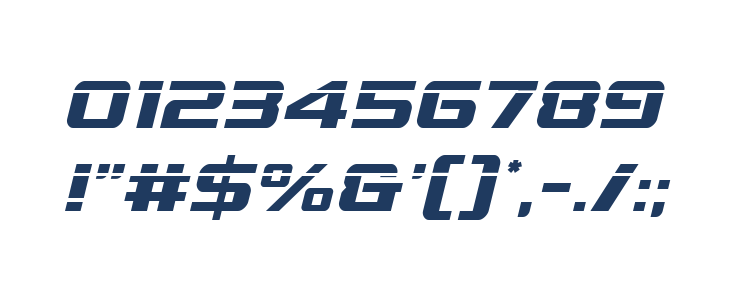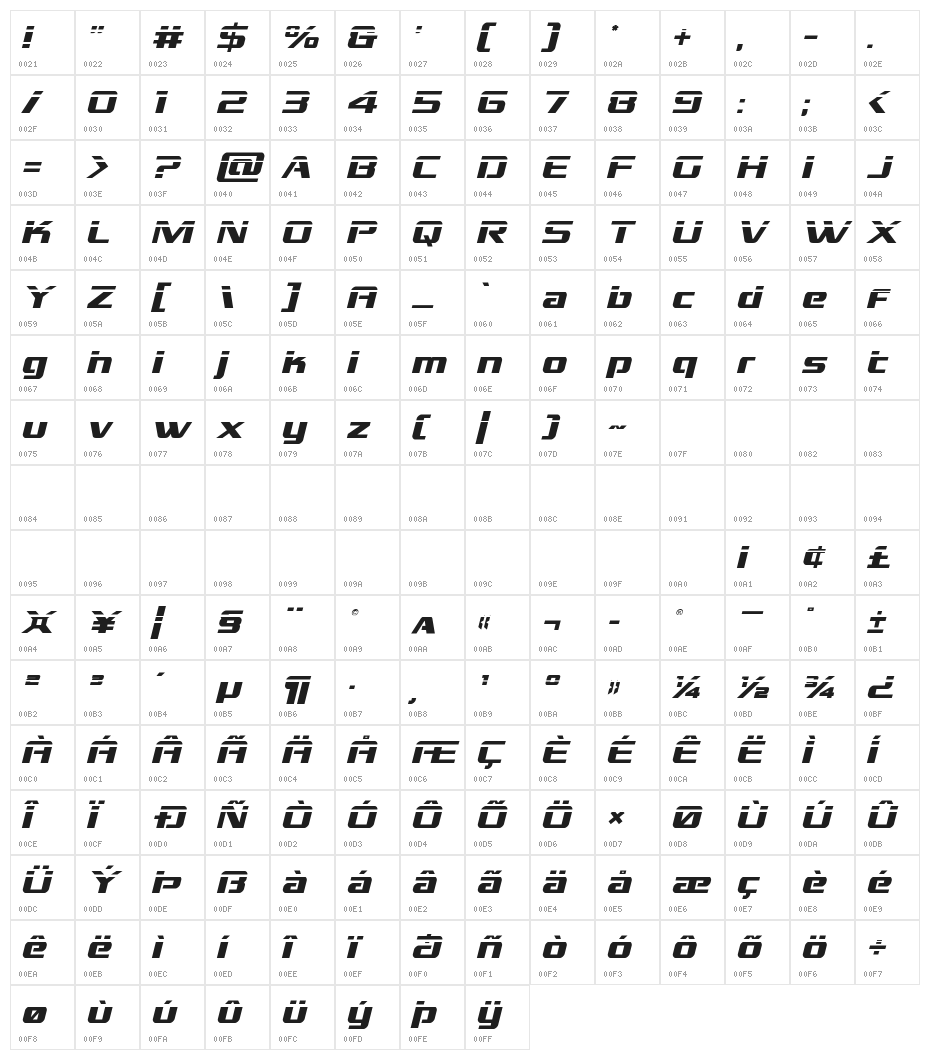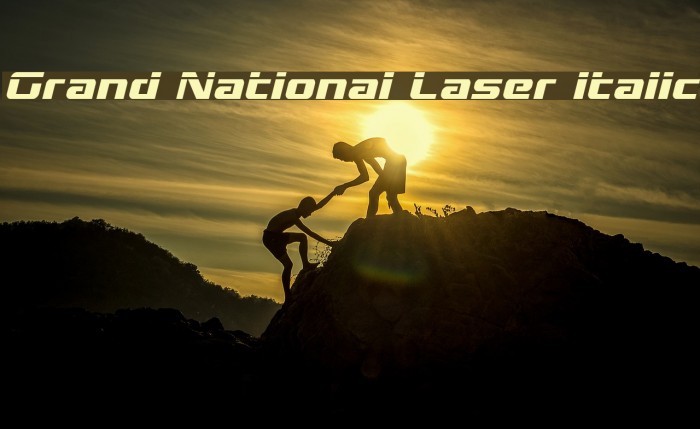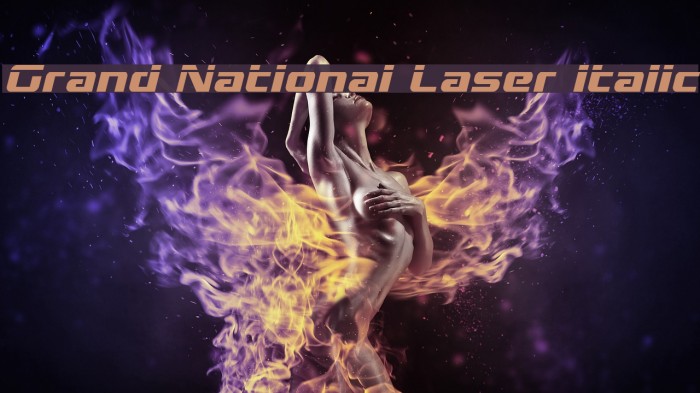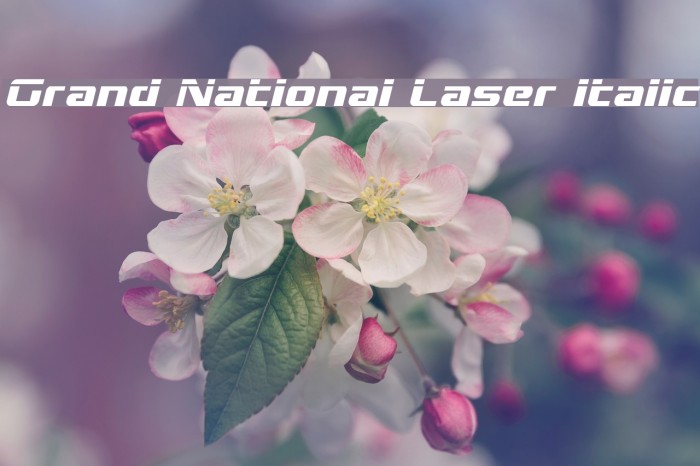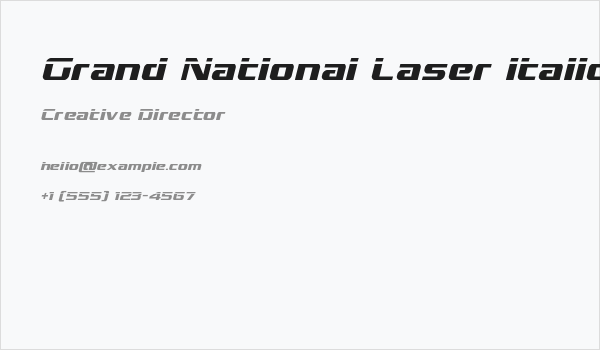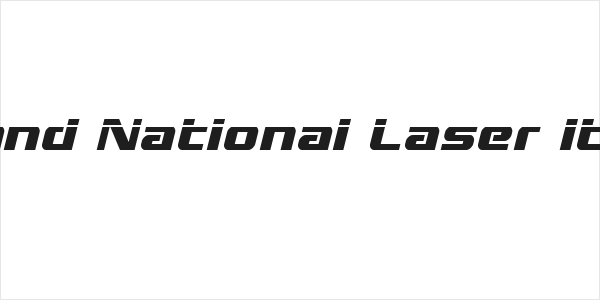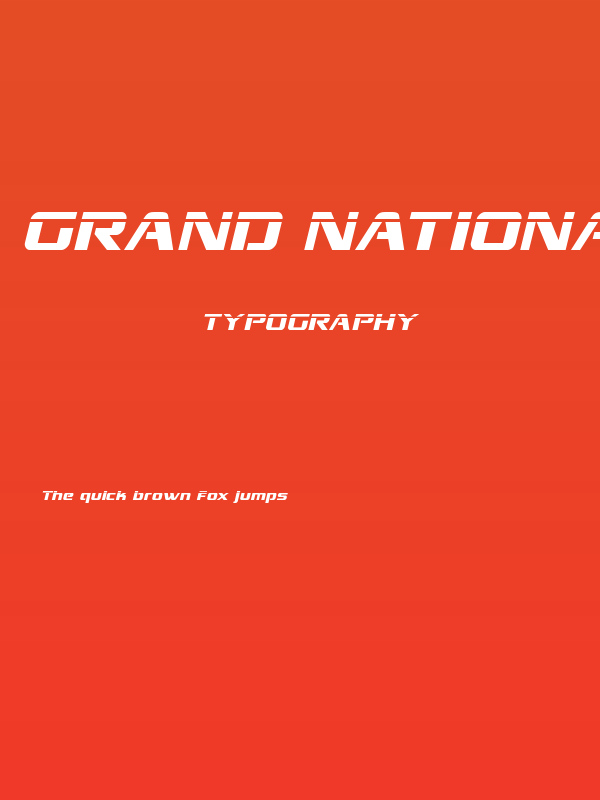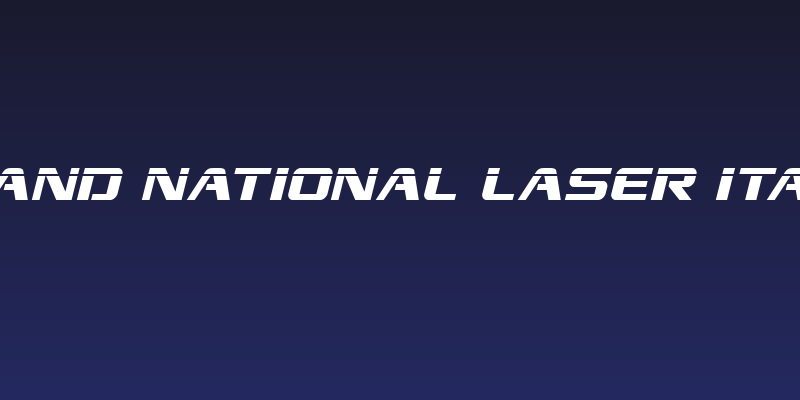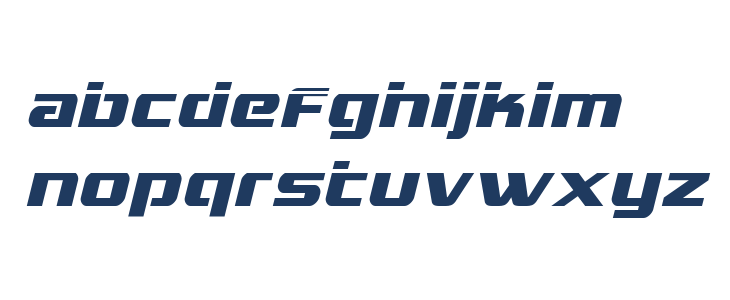
Grand National Laser Italic Font
Grand National Laser Italic Description
This font features a dynamic and futuristic design, characterized by its italicized and angular letterforms. The sharp edges and slanted orientation give it a sense of motion and speed, making it ideal for projects that require a modern and energetic aesthetic. The uppercase and lowercase letters maintain a consistent style, with a slight variation in stroke thickness that adds visual interest. The numerals and special characters are designed to complement the overall style, ensuring a cohesive look across all text elements. The font's unique appearance makes it suitable for creative and bold design projects.
| Proposed Projects | Ideal for sports branding, automotive designs, tech-related projects, and modern advertising campaigns. |